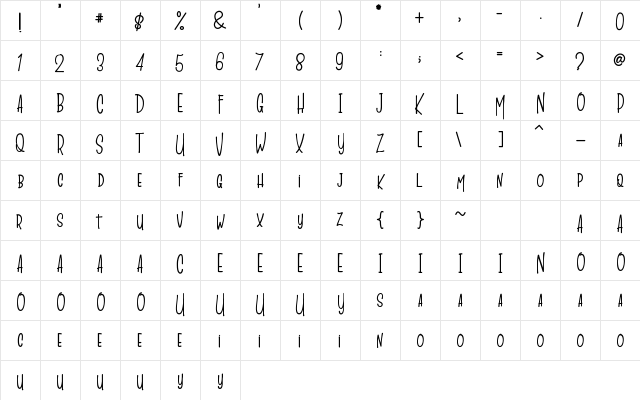
The Crost HorMenT Regular
| Foundry | Kotak Kuning Studio |
| Designer | Arif Dwi |
Design Context for The Crost HorMenT Typeface
The Crost HorMenT takes a measured approach to typography — its balanced proportions and neutral character make it a reliable workhorse for both digital and print work.